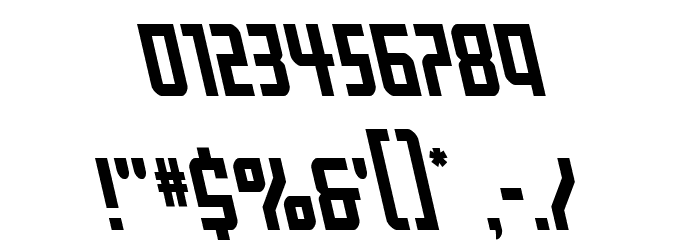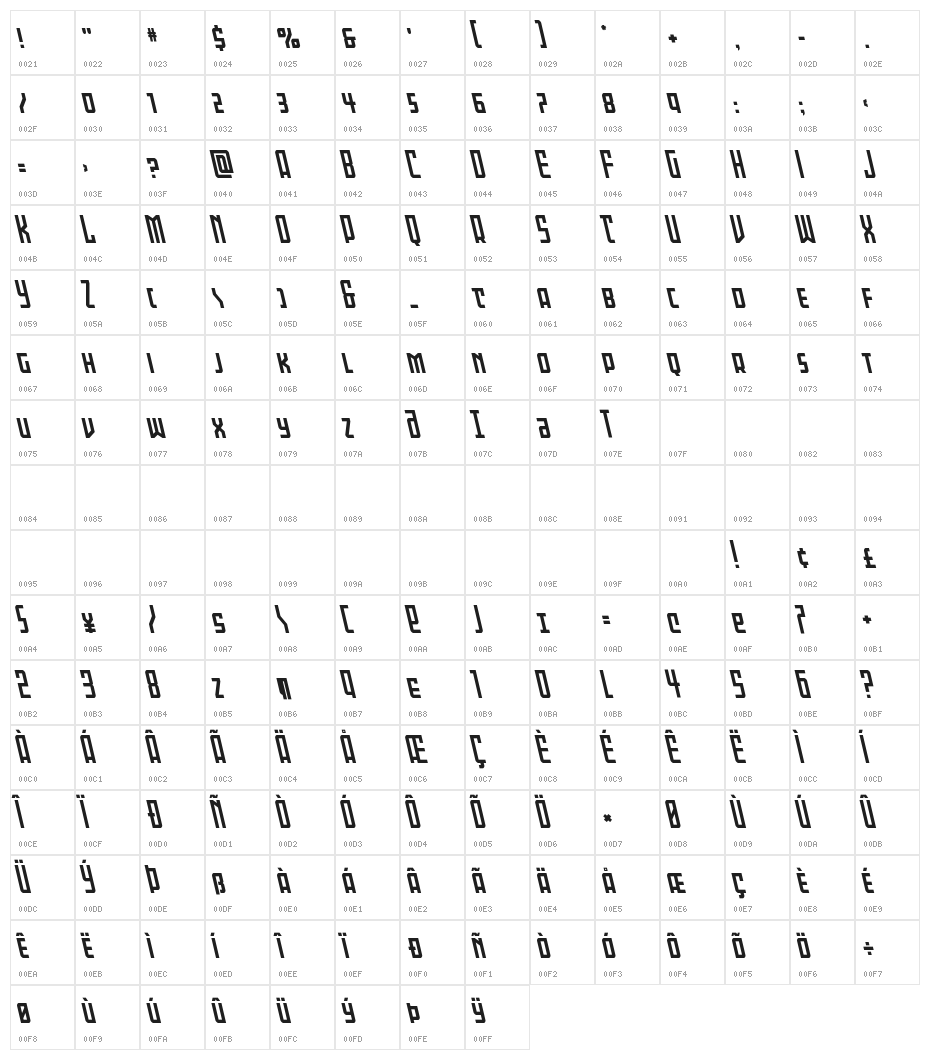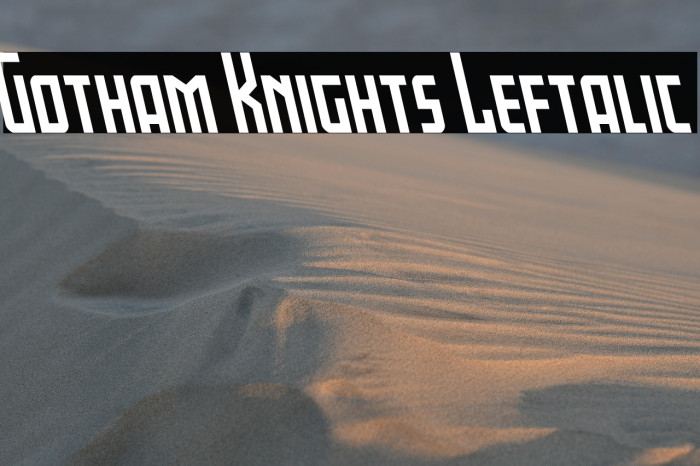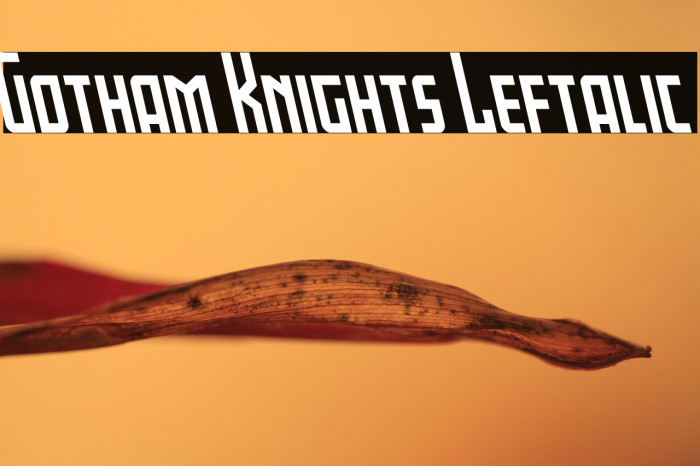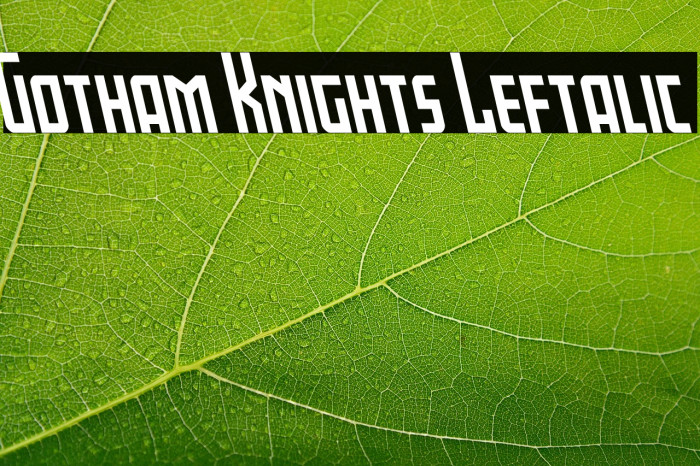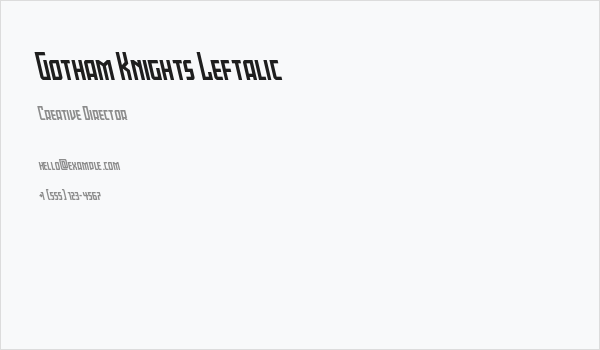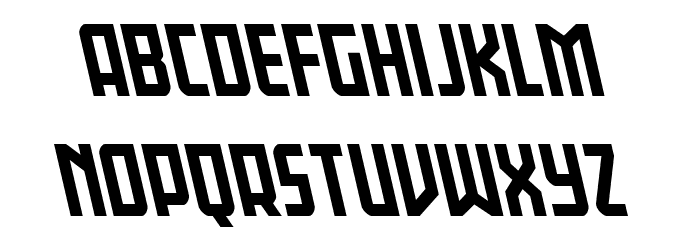
Gotham Knights Leftalic Font
Gotham Knights Leftalic Description
This font features a bold, angular design with a distinct leftward slant, giving it a dynamic and edgy appearance. The characters are constructed with thick, uniform strokes, creating a strong visual impact. The uppercase letters are particularly striking, with sharp corners and a geometric style that conveys a sense of modernity and strength. The numbers and special characters maintain this bold aesthetic, ensuring consistency across all glyphs. The overall design is reminiscent of futuristic or sci-fi themes, making it suitable for projects that require a bold and assertive typeface.